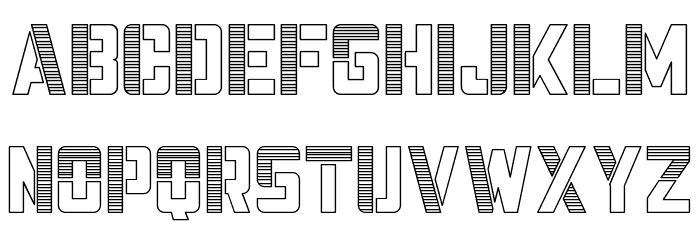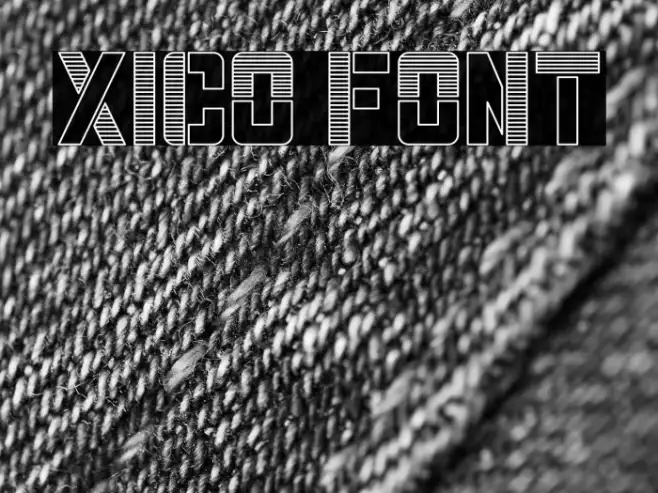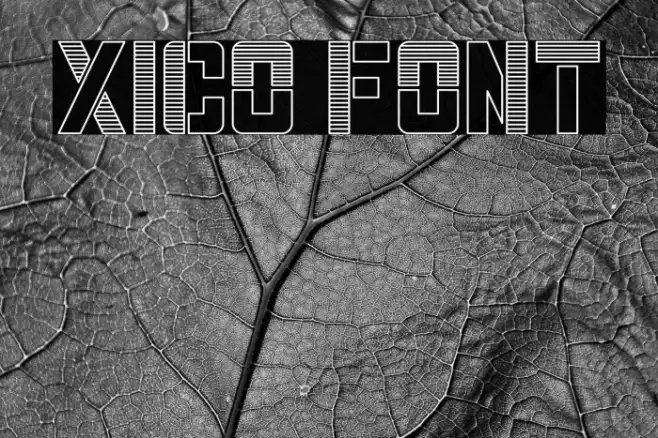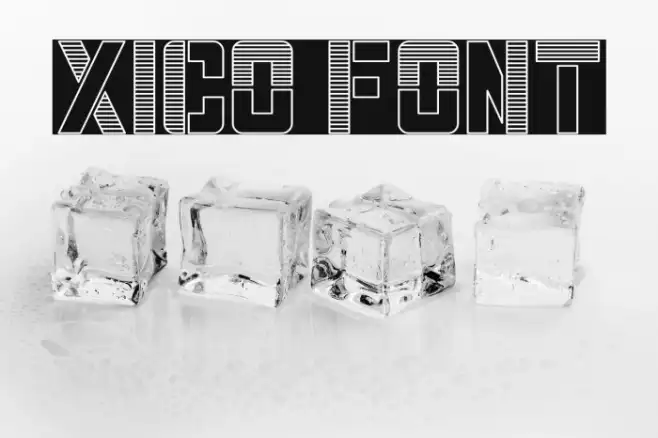
Xico Font
This font features a bold, geometric design with a distinct 3D effect created by parallel lines within each character. The uppercase letters are structured with sharp angles and clean lines, giving a modern and industrial feel. The absence of lowercase letters and numerals suggests a focus on impactful, large-scale use. The font's unique style is characterized by its striped pattern, which adds depth and dimension, making it ideal for eye-catching headlines or display purposes.
A bold, geometric font with a 3D striped effect, ideal for impactful headlines.
- Font: Xico
- Proposed Projects: This font is perfect for projects that require a strong visual impact, such as posters, logos, and branding materials. Its distinctive style makes it suitable for modern and industrial-themed designs.